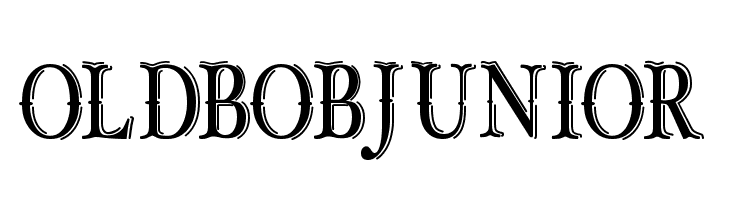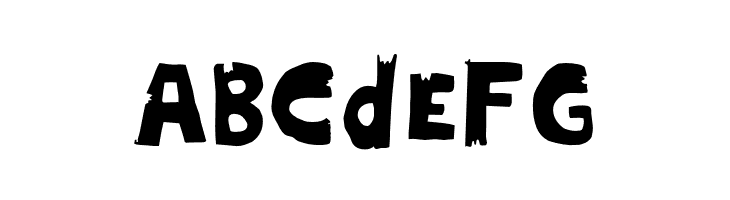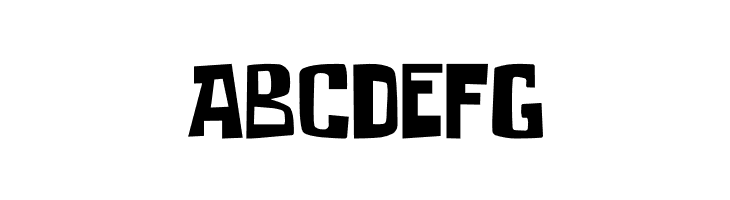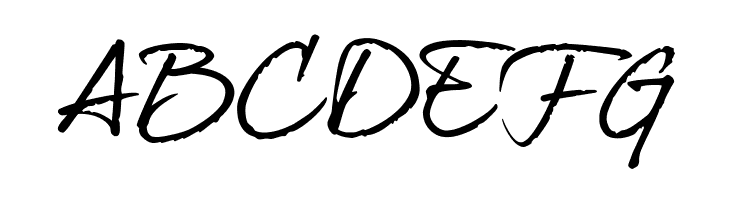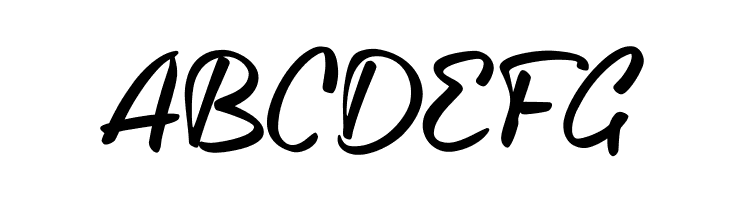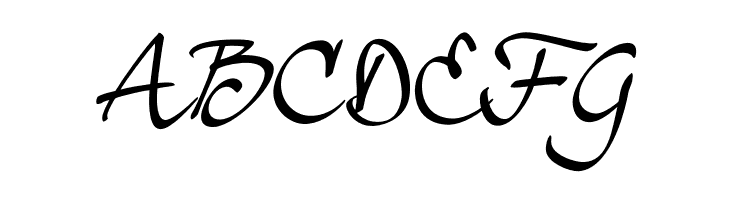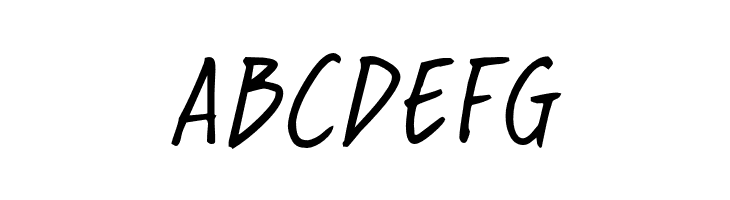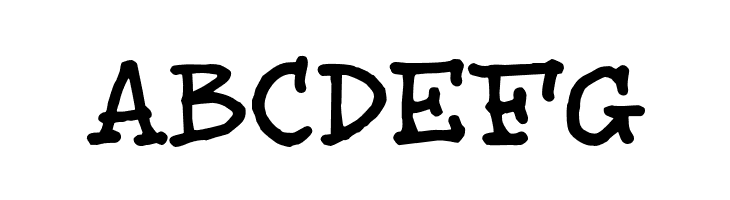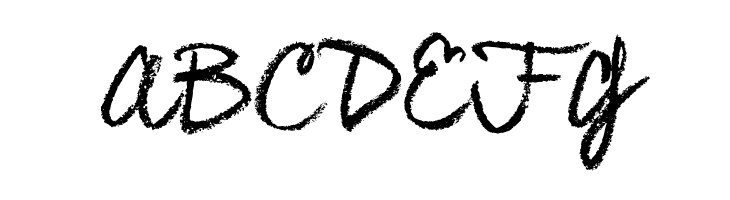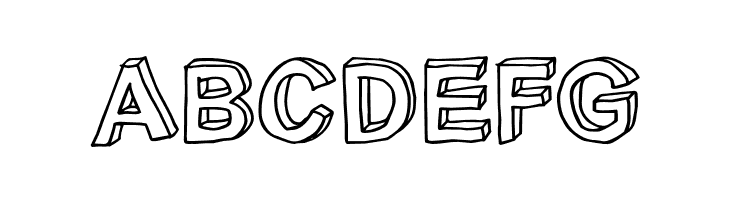
( JOEBOB graphics - Joe vanderHam - www.joebob.nl )
A bold, hand-drawn font with dynamic and expressive strokes.
( JOEBOB graphics - Joe vanderHam - www.joebob.nl )
A bold, handwritten font with a playful and energetic style.
( JOEBOB graphics - Joe vanderHam - www.joebob.nl )
A bold, expressive brush-style font with dynamic strokes.
( JOEBOB graphics - Joe vanderHam - www.joebob.nl )
A bold, brush-style font with an expressive, handcrafted look.
( JOEBOB graphics - Joe vanderHam - www.joebob.nl )
A dynamic brush script font with fluid, organic strokes and a hand-crafted feel.
( JOEBOB graphics - Joe vanderHam - www.joebob.nl )
A playful, 3D outline font with a hand-drawn, comic book style.
( JOEBOB graphics - Joe vanderHam - www.joebob.nl )
A bold, playful font with a three-dimensional shadow effect.
( JOEBOB graphics - Joe vanderHam - www.joebob.nl )
A dynamic calligraphic font with expressive, sweeping strokes and elegant character shapes.
( JOEBOB graphics - Joe vanderHam - www.joebob.nl )
A bold, textured, and playful font with a hand-drawn aesthetic.
( JOEBOB graphics - Joe vanderHam - www.joebob.nl )
A handwritten, casual script font with fluid strokes.
( JOEBOB graphics - Joe vanderHam - www.joebob.nl )
A cursive, handwritten font with elegant, flowing strokes.
( JOEBOB graphics - Joe vanderHam - www.joebob.nl )
A handwritten, casual font with dynamic strokes and a personal touch.
( JOEBOB graphics - Joe vanderHam - www.joebob.nl )
A bold, brush-style font with dynamic, textured strokes.
( JOEBOB graphics - Joe vanderHam - www.joebob.nl )
A dynamic, brush-style font with textured, cursive strokes.
( JOEBOB graphics - Joe vanderHam - www.joebob.nl )
A dynamic and flowing script font with elegant, cursive letterforms.
( JOEBOB graphics - Joe vanderHam - www.joebob.nl )
A dynamic and elegant script font with flowing letterforms.
( JOEBOB graphics - Joe vanderHam - www.joebob.nl )
A dynamic and expressive handwritten font with fluid strokes.
( JOEBOB graphics - Joe vanderHam - www.joebob.nl )
A casual, handwritten font with an organic and dynamic style.
( JOEBOB graphics - Joe vanderHam - www.joebob.nl )
A textured, hand-drawn font with a playful, informal style.
( JOEBOB graphics - Joe vanderHam - www.joebob.nl )
An elegant script font with flowing, cursive strokes and ornate details.
( JOEBOB graphics - Joe vanderHam - www.joebob.nl )
An elegant script font with flowing, cursive letters and sophisticated style.